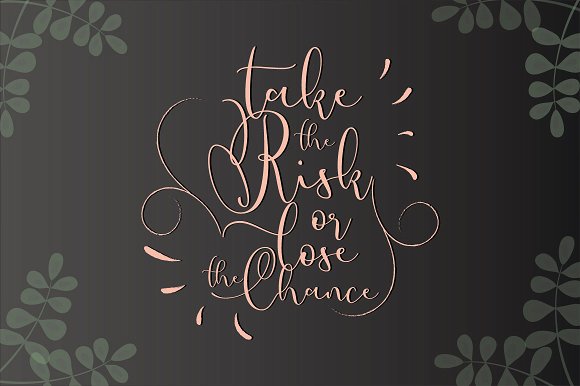
INTRODUCING a PINK COYOTES, a hand lettering modern fresh script font, Pink Coyotes creating the natural font for your designs beyond a standard font and .INTRODUCING a PINK COYOTES, a hand lettering modern fresh script font, Pink Coyotes creating the natural font for your designs beyond a standard font and .Discover ideas about Pretty Fonts. Pink Coyotes Fonts Introducing a **PINK COYOTES**, a hand lettering modern fresh script font, Pink Coyotes creating the by .Introducing a PINK COYOTES, a hand lettering modern fresh script font, Pink Coyotes creating the natural font for your designs beyond a .Introducing a PINK COYOTES, a hand lettering modern fresh script font, Pink Coyotes creating the natural font for your designs beyond a .Pink Coyotes otf Font Download Pink Coyotes otf font. SIMILAR FREE FONTS pink coyotes Delphine Et Mathias Script Font..Pink Script A fashionable and quirky new handwriting font script. Created to look as close to a natural handwritten script as possible by .Browse the commercial free fonts classified as script..